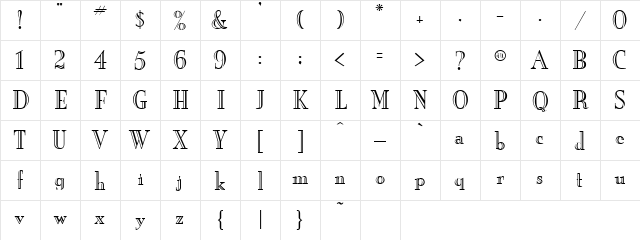
Stone Free 4 Regular
Design Context for Stone Free 4 Typeface
Stone Free 4 offers clean, dependable letterforms without strong stylistic allegiance, making it a practical choice for designers who need flexibility.